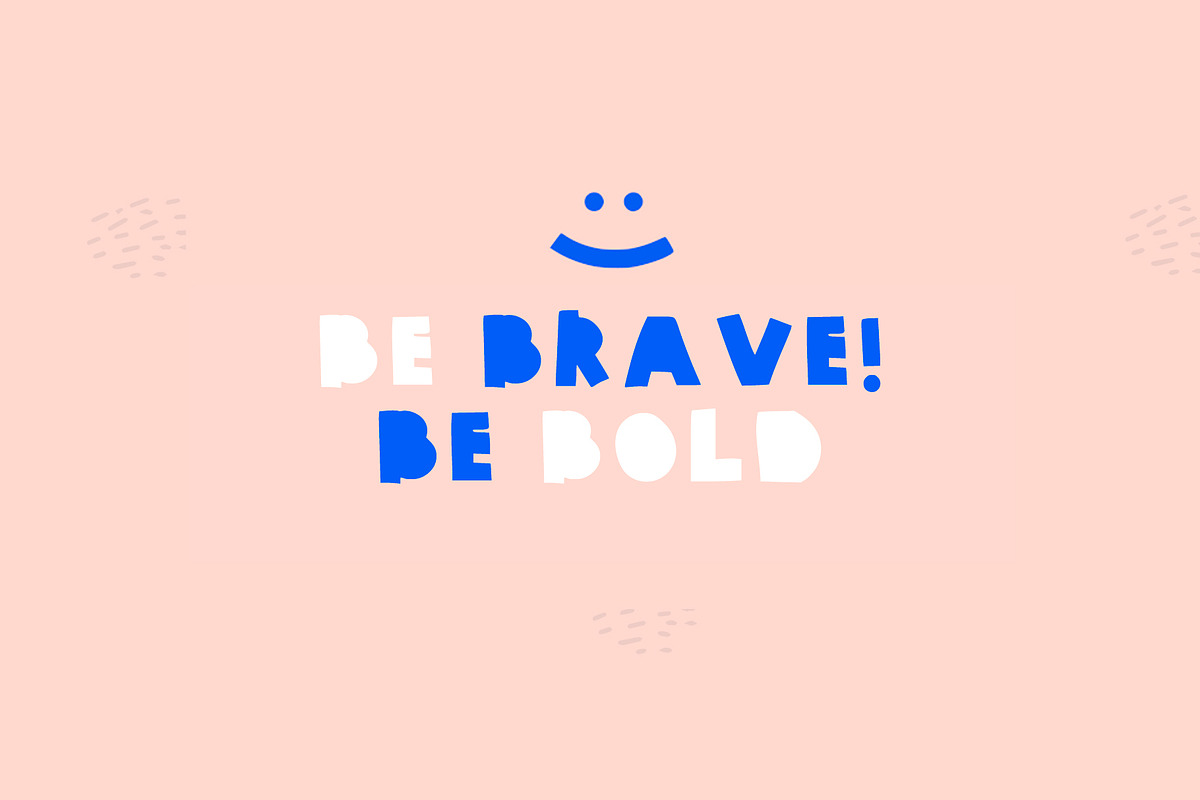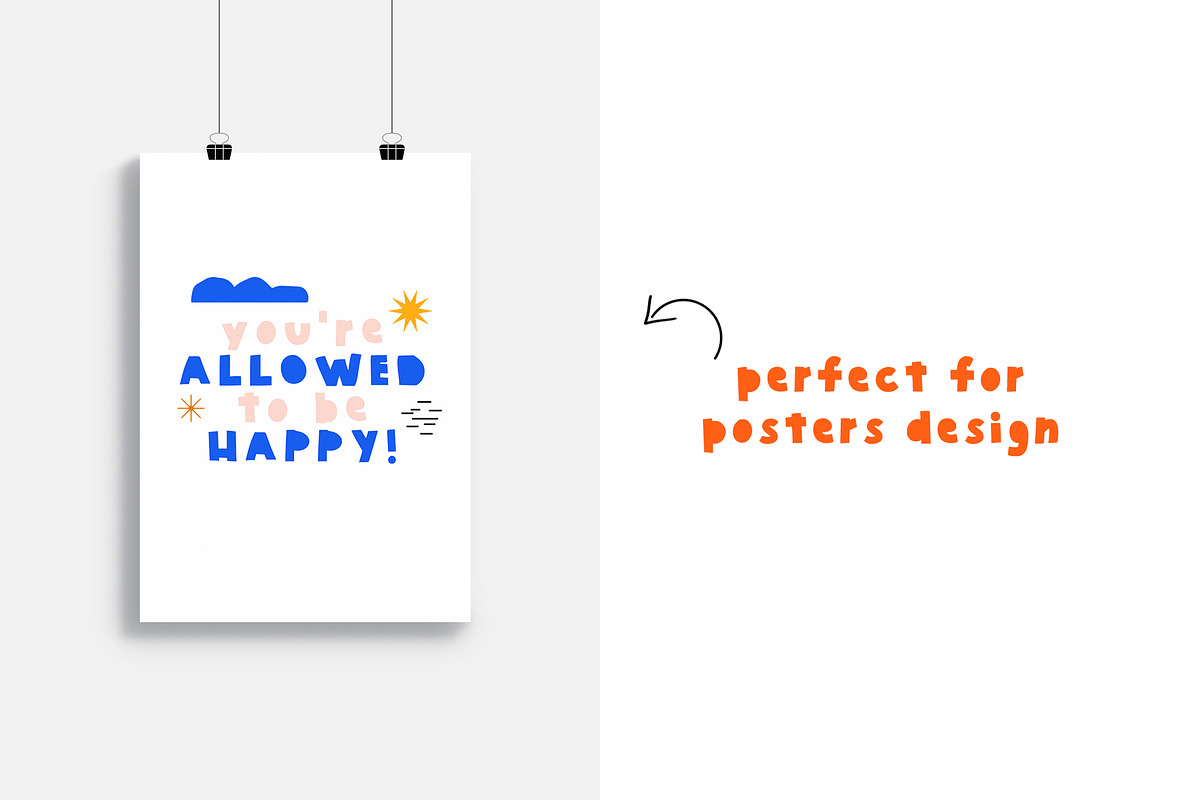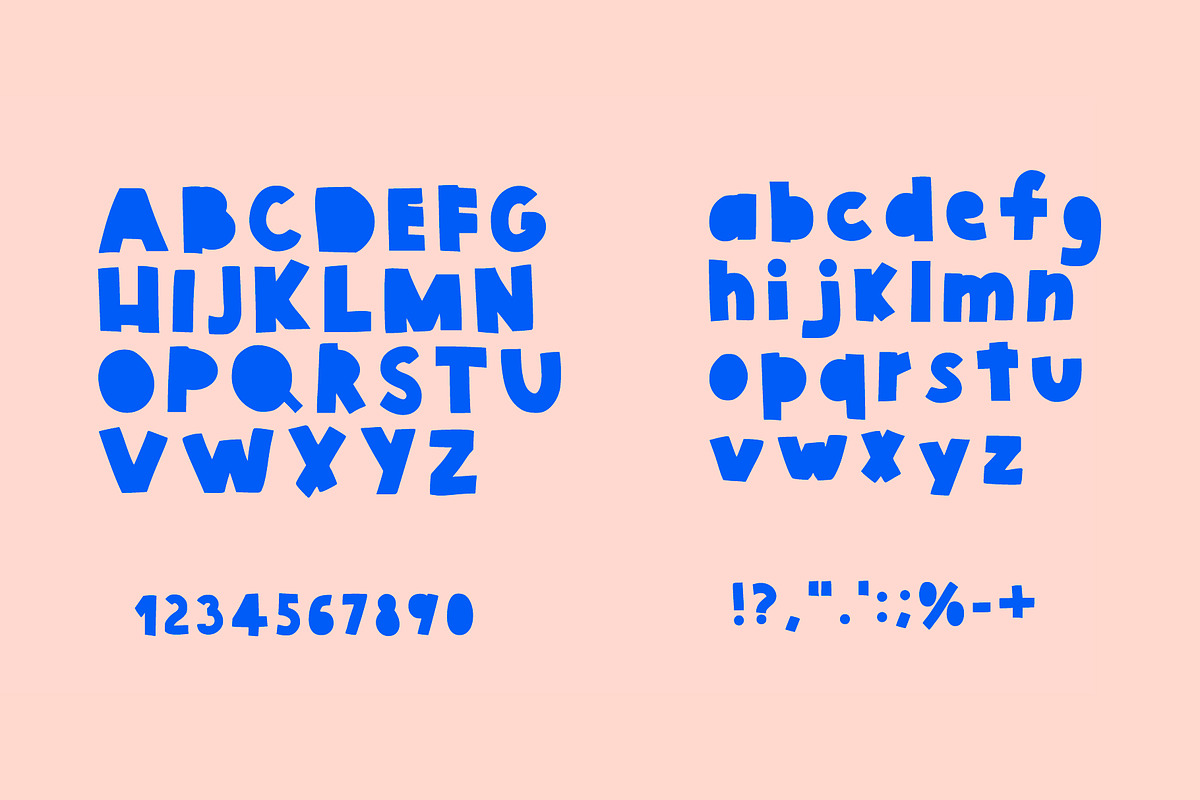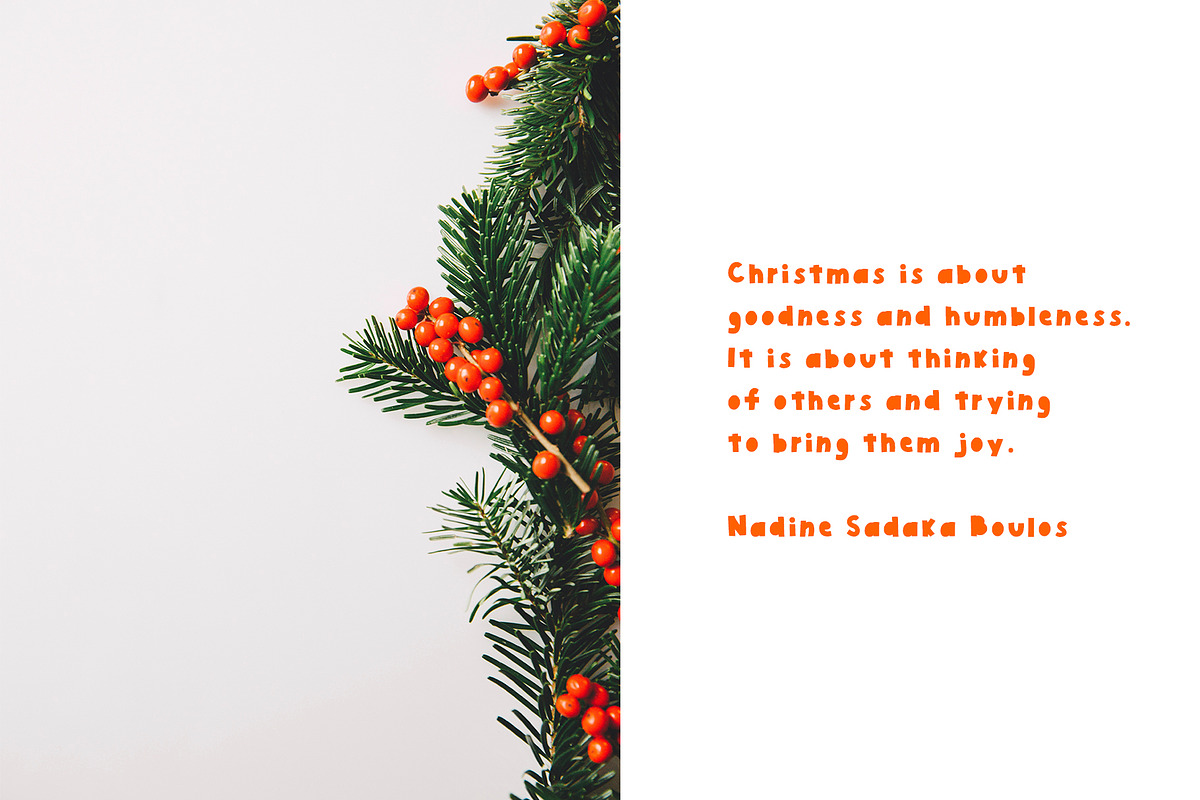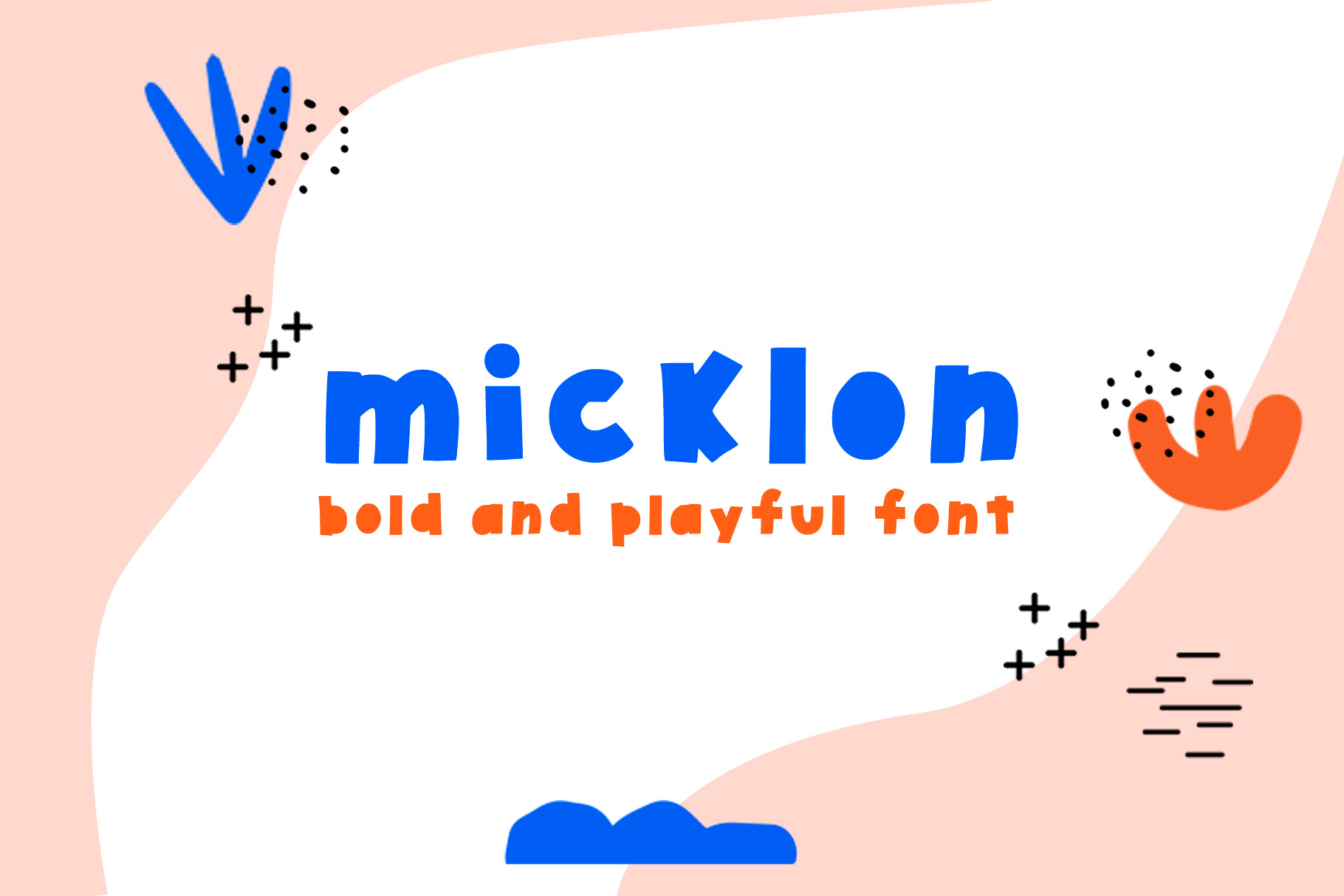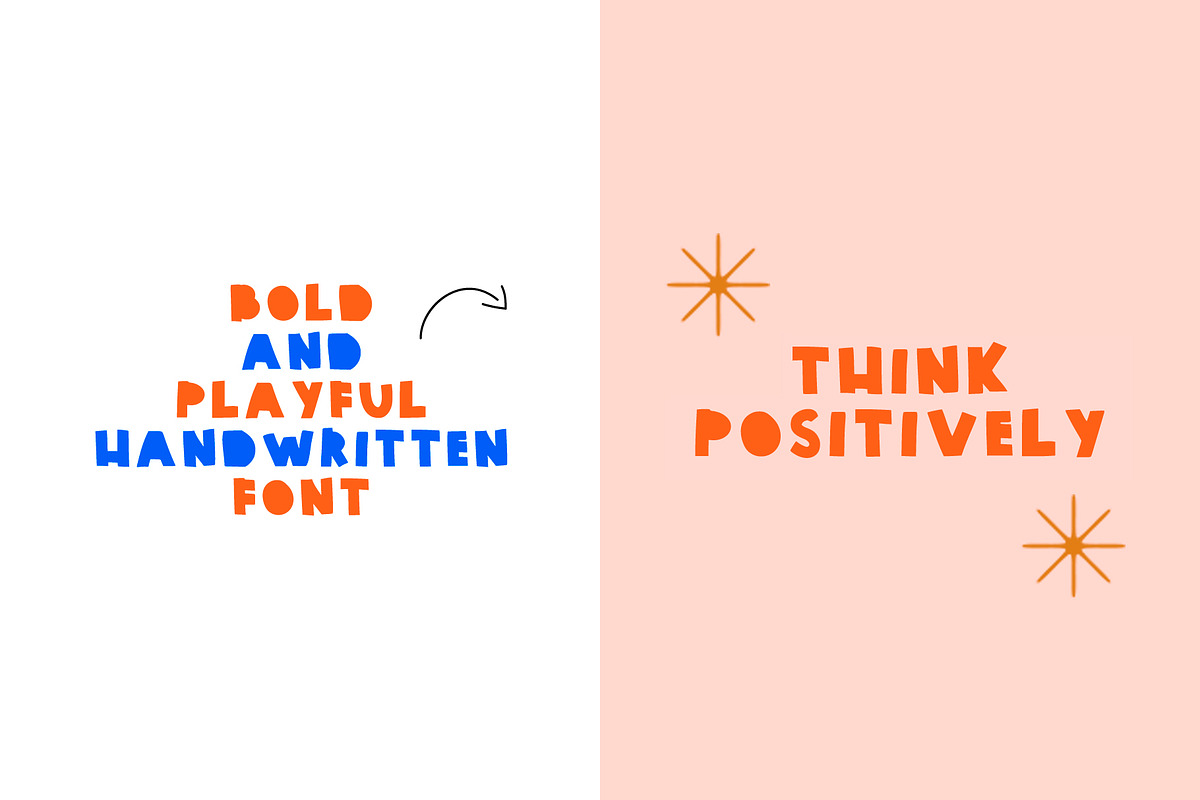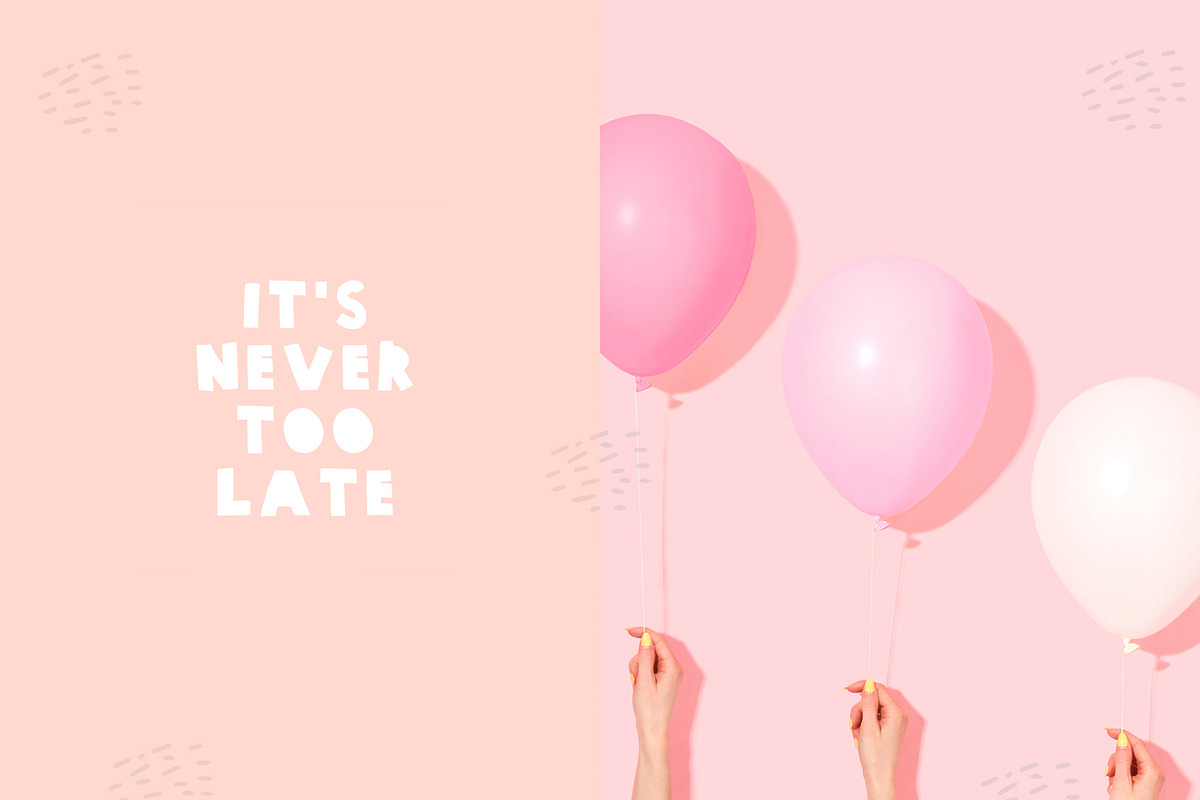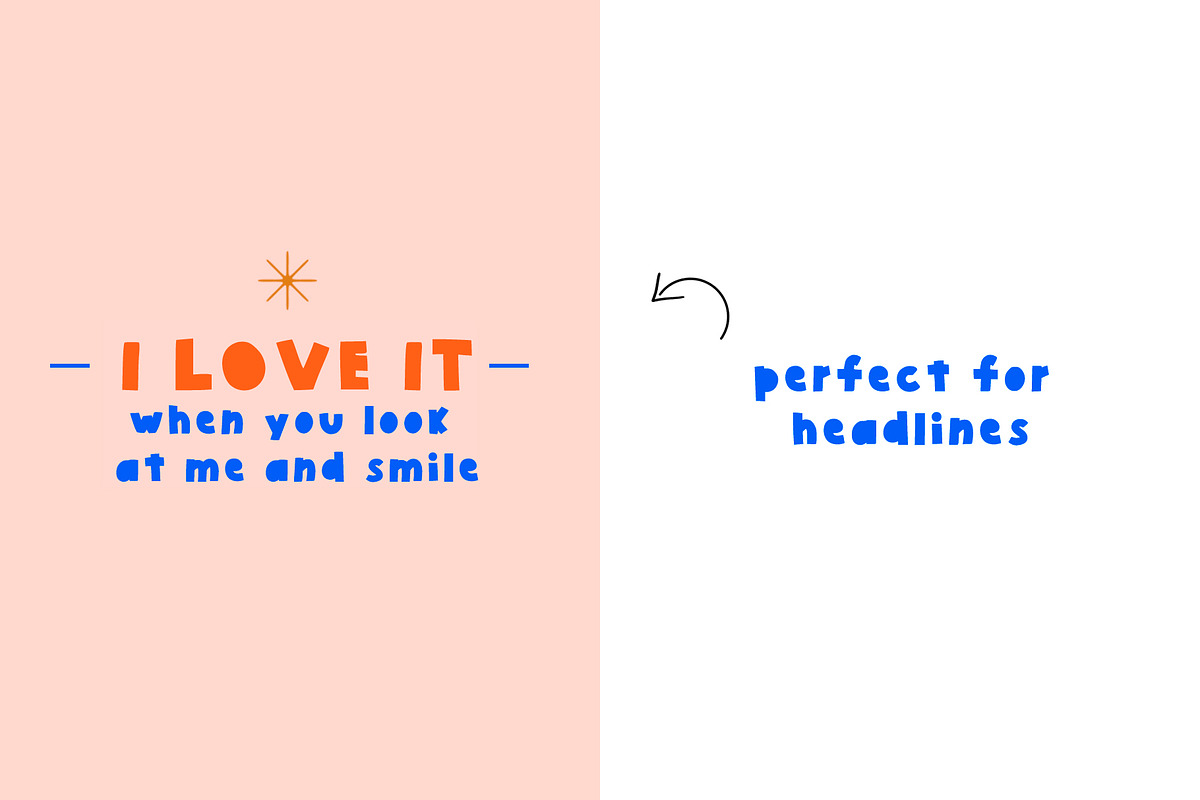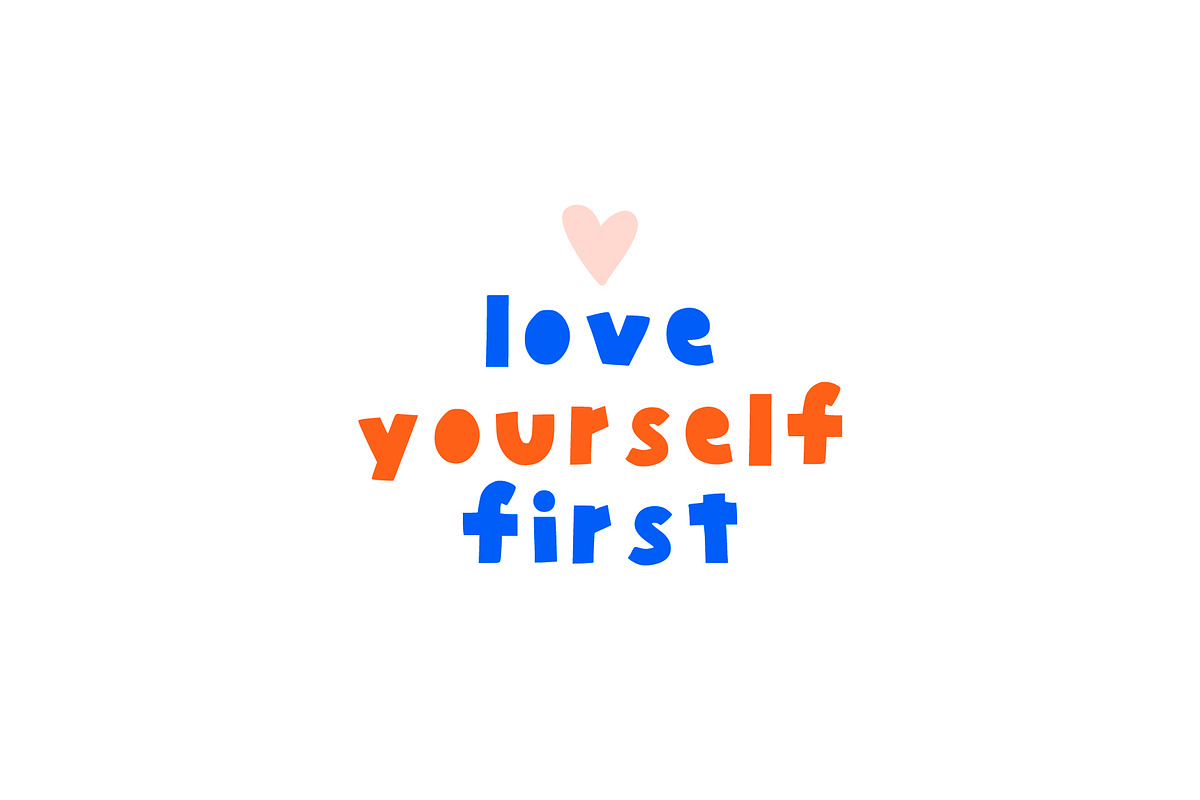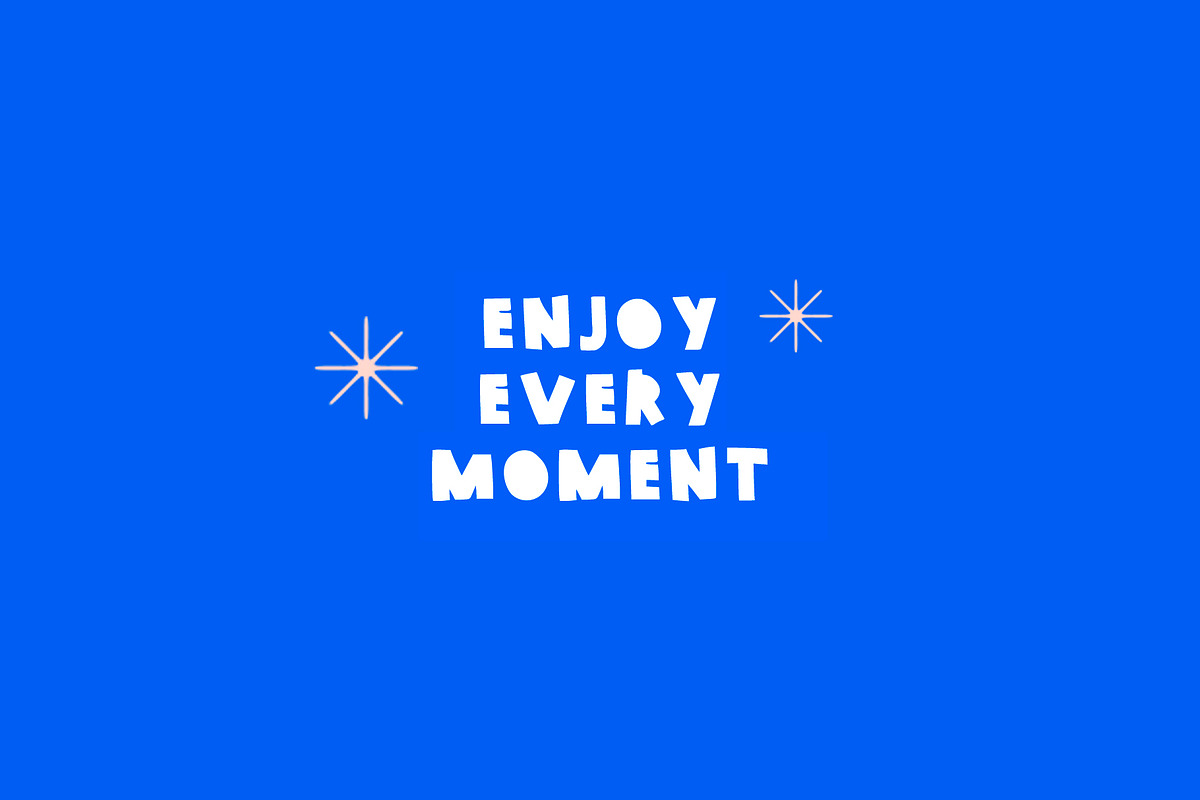
bold and playful kids font MICKLON
MICKLON is a handwritten bold and playful font.
It's for your designs as a quotes, social media posts, headers, posters, card, etc.
I use this a lot in my presentions: